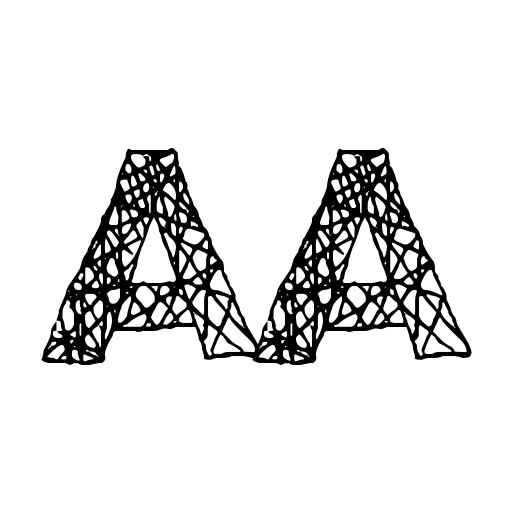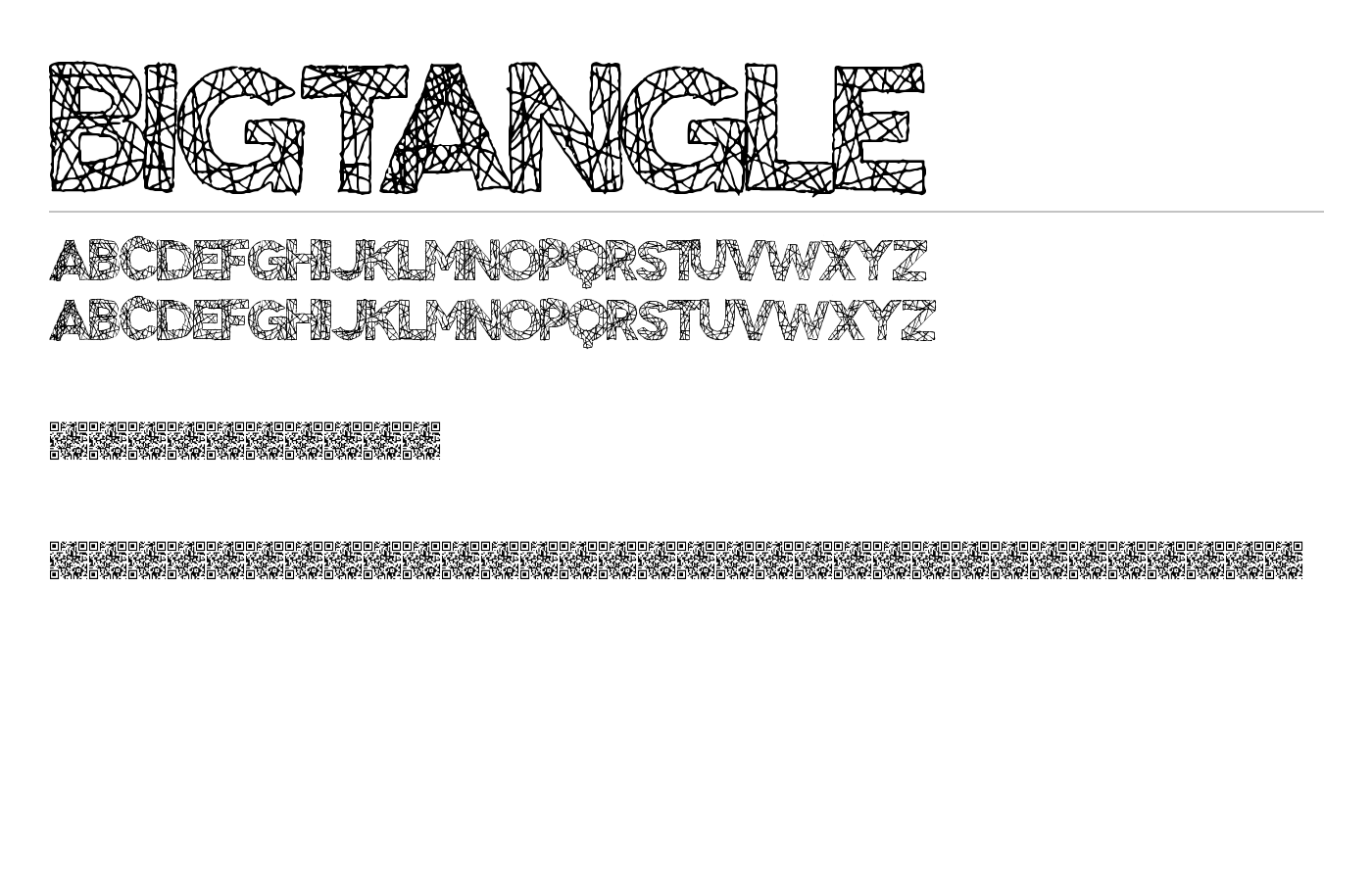
BigTangle is a unique, sans serif display font characterized by its intricate web-like texture that creates a tangled, hand-drawn effect. With bold, uppercase letters and an open, airy structure, this font conveys a sense of creativity and playfulness, making it ideal for eye-catching headlines, posters, and artistic branding projects. Its distinctive style works best when used at large sizes to showcase the detailed line work.
BigTangle Font
About BigTangle Font
| Font family | BigTangle Font |
| Designer | Max Infeld Xerographer Fonts |